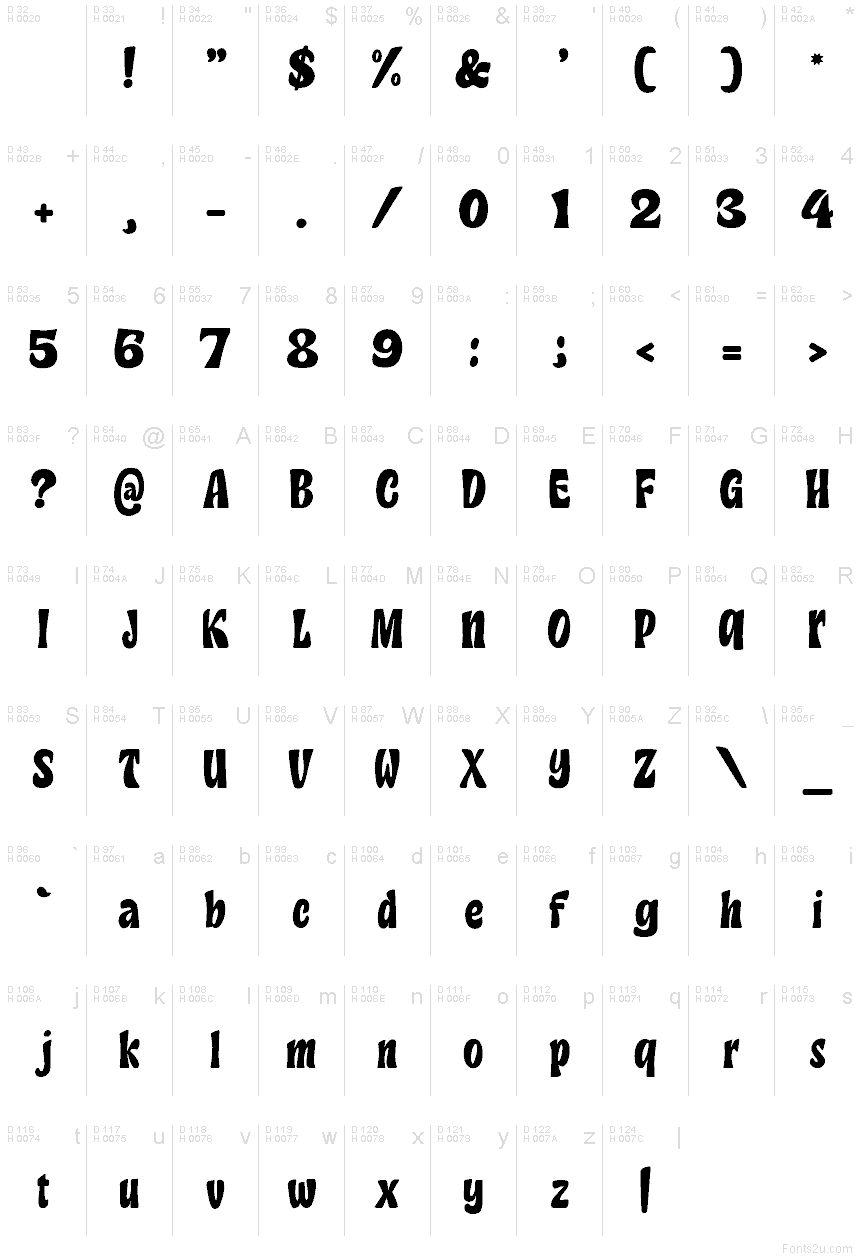
Moustache Choubidou font by BlackFridayFont FMF is a free groovy display typeface with big, inky strokes that swell and taper like a well-waxed curl. Its bouncy rhythm and slightly squeezed spacing pack words together into a lively, retro wave-thick, glossy letters that feel hand-pulled from a 60s poster press. The texture reads bold without shouting, lending warmth and swagger in an instant.
Using Moustache Choubidou, headlines snap to attention on event posters, album covers, vintage packaging, food-truck menus, stickers, and bold social graphics. The playful curves create a rolling cadence that’s easy to scan at large sizes. Pair this free font with a simple geometric sans for body copy to keep the groove focused and readable.